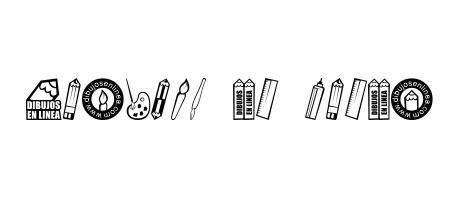
Linea
By Matias Romero
Dibujos en Linea is a playful, hand-drawn style font. Its charming irregularities give it a handcrafted feel. The design incorporates simple, bold lines and shapes, reminiscent of children's drawings or simple line art. It's friendly, approachable, and evokes a sense of creativity and artistic expression. The font would be suitable for projects targeting a young or artistic audience.